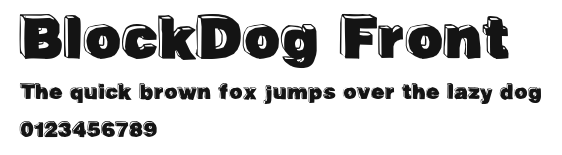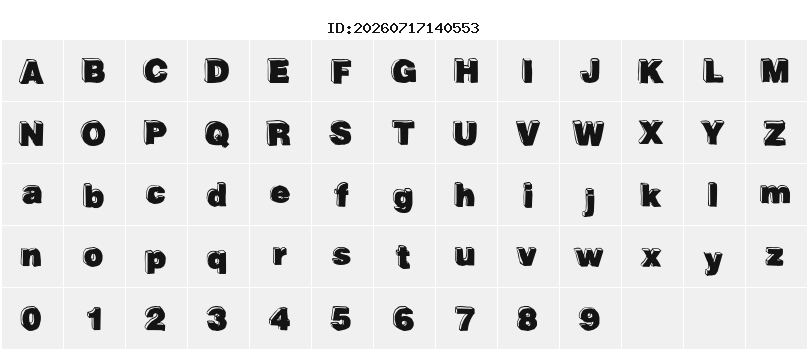
• Font Name: BlockDog Front
• Full Font Name: BlockDog Front
About BlockDog Front.ttf
BlockDog Front.ttf is a modern, elegant sans-serif font designed for ultimate readability and visual harmony. Perfect for branding, headlines, web design, and print materials.